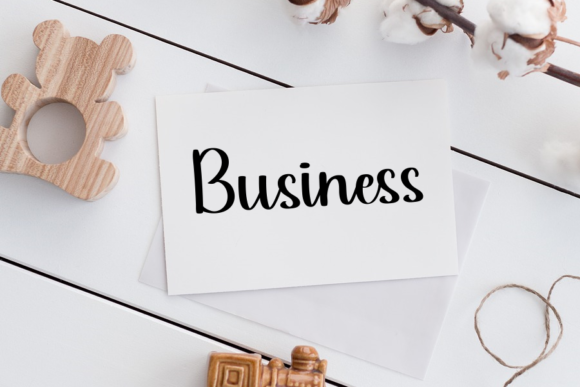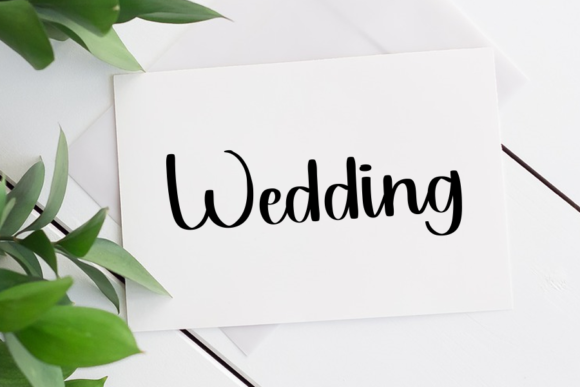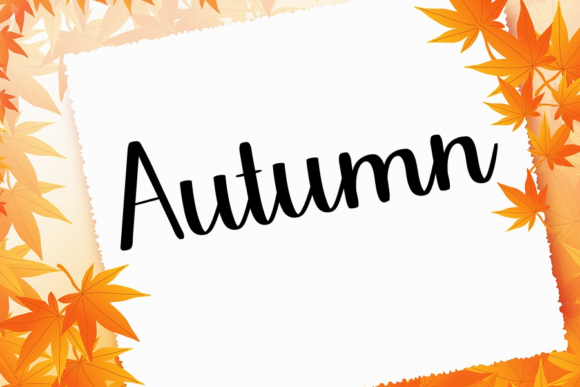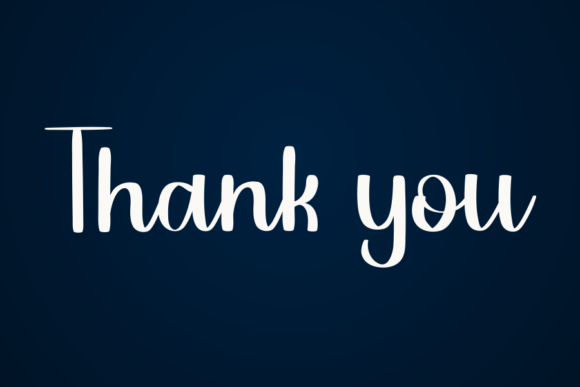
The Magic of California Font: Elevating Your Designs with Elegance
I still remember the time I was working on a DIY project for a client’s wedding invitation. I had the perfect design concept, but something was missing – the right font. I scoured the internet, tried countless combinations, but nothing seemed to fit the bill. That was until I stumbled upon California Font, a magical script font that added a touch of elegance to the entire design. In this article, I’ll share my experience with California Font, its features, and how to make the most of it in your creative projects.
The Good, the Great, and the Amazing ✨
- ✅ Elegant and sophisticated design that’s perfect for high-end projects
- ✨ Highly versatile, suitable for a wide range of creative applications, from Instagram posts to calligraphy scripts
- ✅ Beautifully crafted with attention to detail, making it a joy to work with
- 💫 Supports OpenType features, glyphs, and stylistic alternates, giving you plenty of creative freedom
A Few Quirks to Keep in Mind 🤔
- ⚠️ May require some getting used to, especially for beginners, due to its intricate design
- ⚠️ Not ideal for body text or long-form content, as it’s best suited for headlines and titles
The Story Behind California Font: Designer Inspiration
California Font was crafted with love and care by a team of designers who wanted to create a font that embodies the essence of California’s laid-back, yet sophisticated vibe. The font’s intricate design and elegant lines make it perfect for creative projects that require a touch of luxury.
Q: What makes California Font so special?
A: California Font is special because of its elegant design, versatility, and support for OpenType features, glyphs, and stylistic alternates.
Q: Is California Font difficult to read?
A: California Font is a script font, and while it’s beautiful, it may not be the best choice for body text or long-form content.